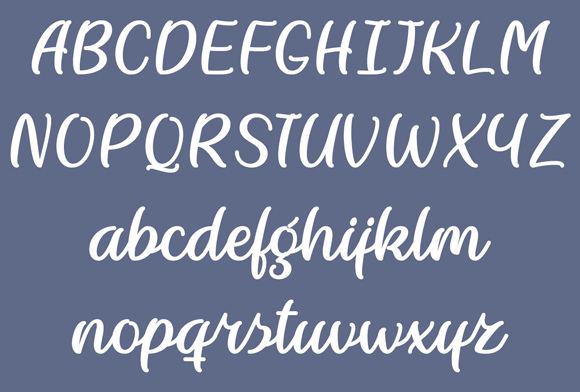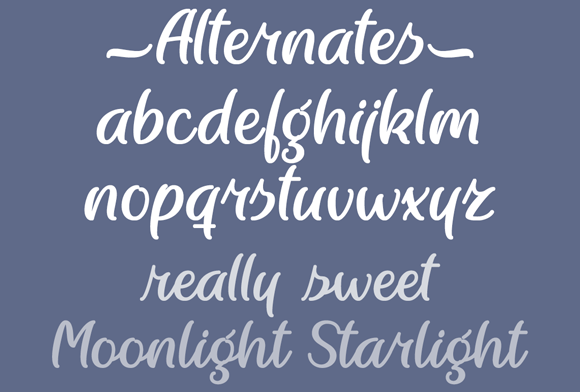
Lightning Crashes Font
Lightning Crashes is a casual cursive typeface that will add style and flair to your projects! Includes non-connecting lowercase alternates for a different look.